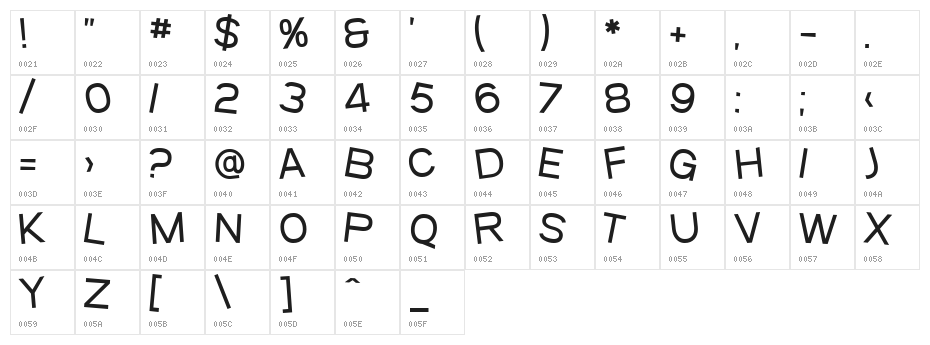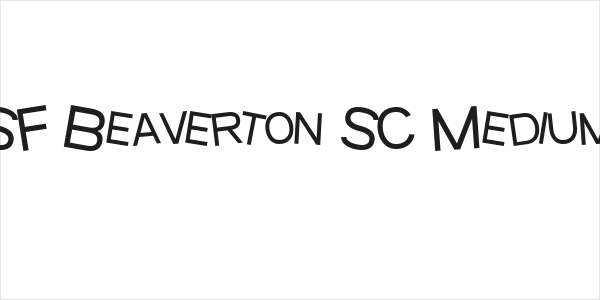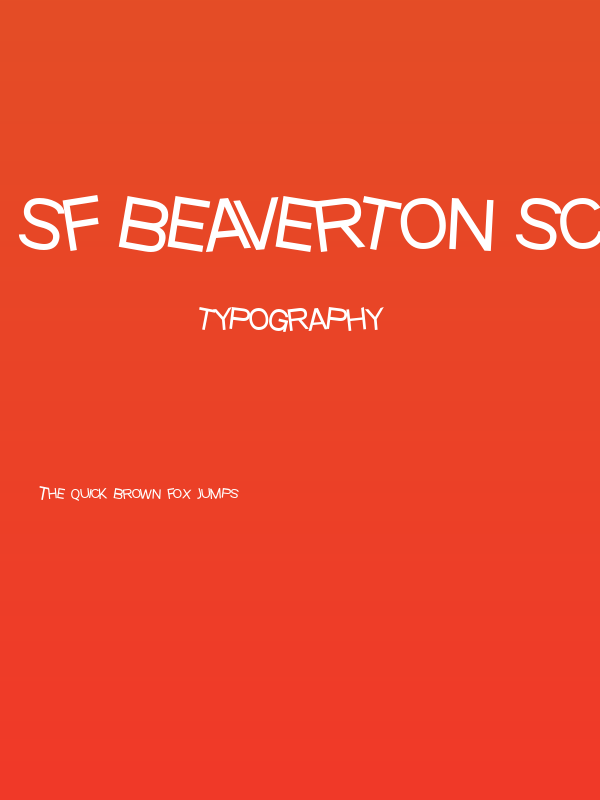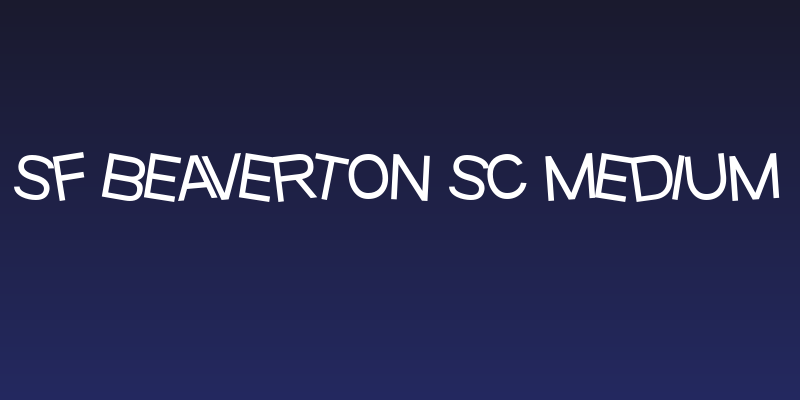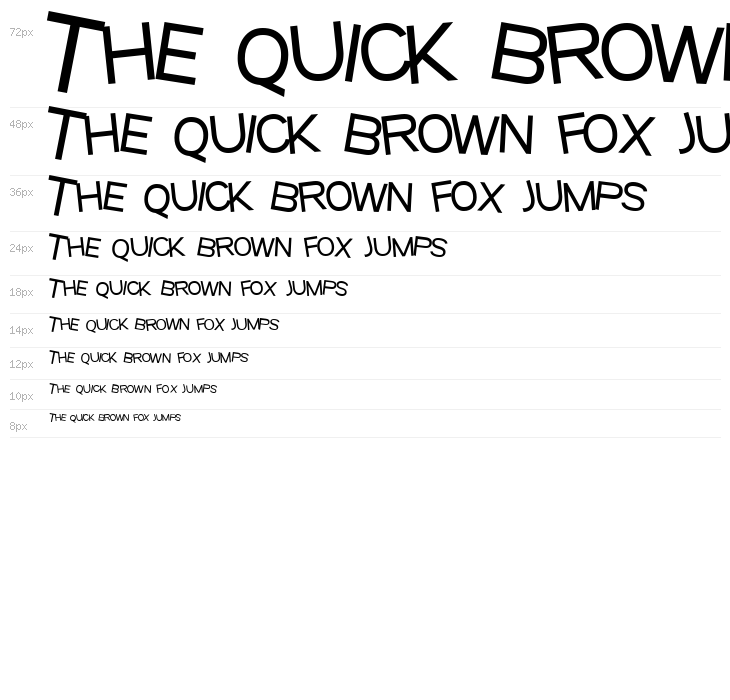
SF Beaverton SC Medium Font
SF Beaverton SC Medium Description
This font exhibits a playful and dynamic style with a slightly tilted and irregular alignment, giving it a lively and informal appearance. The characters are bold and have a strong presence, making them highly legible and impactful. The strokes are consistent in thickness, contributing to a uniform look across all characters. The font's design is modern and slightly quirky, making it suitable for creative and casual applications. Its distinct style can add a unique touch to any project, ensuring that the text stands out and captures attention.
Proposed ProjectsIdeal for children's books, playful branding, casual posters, and creative digital content.